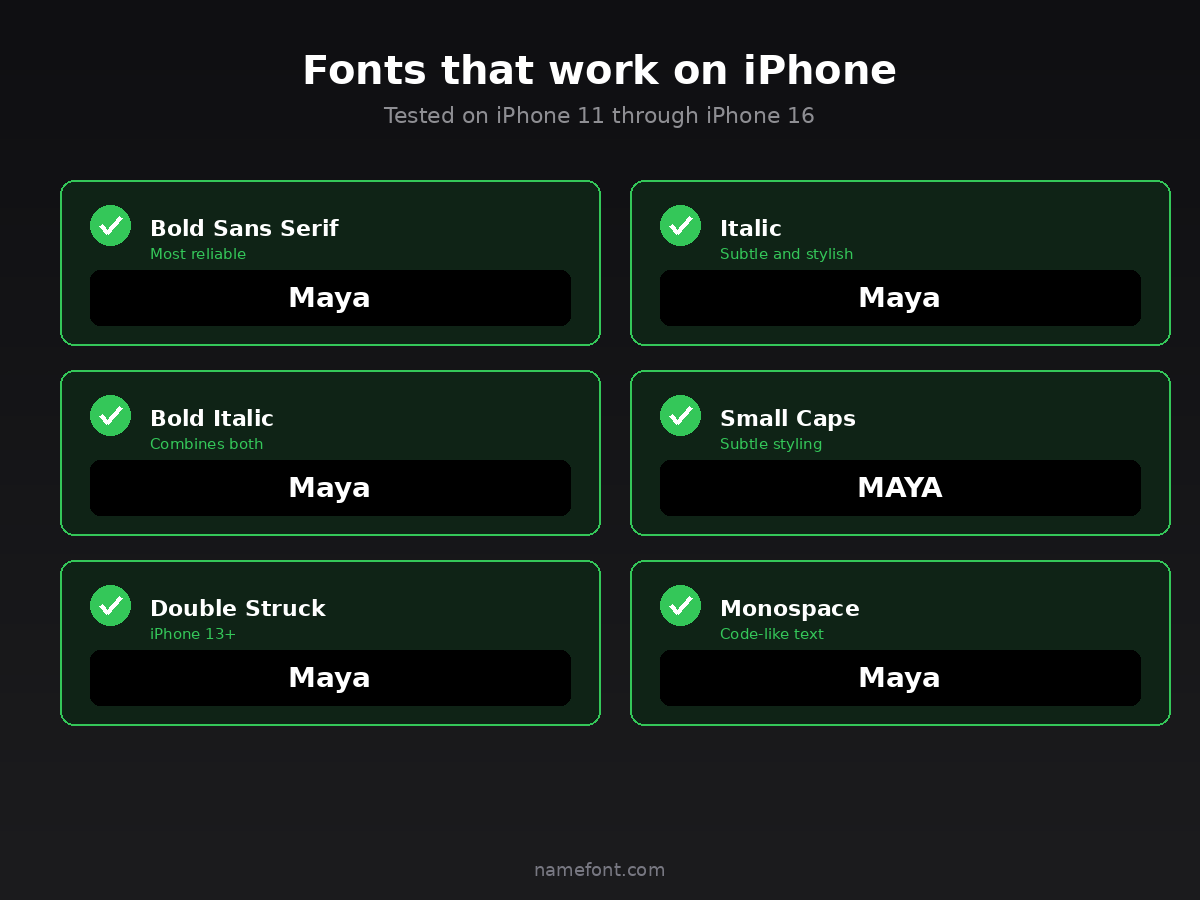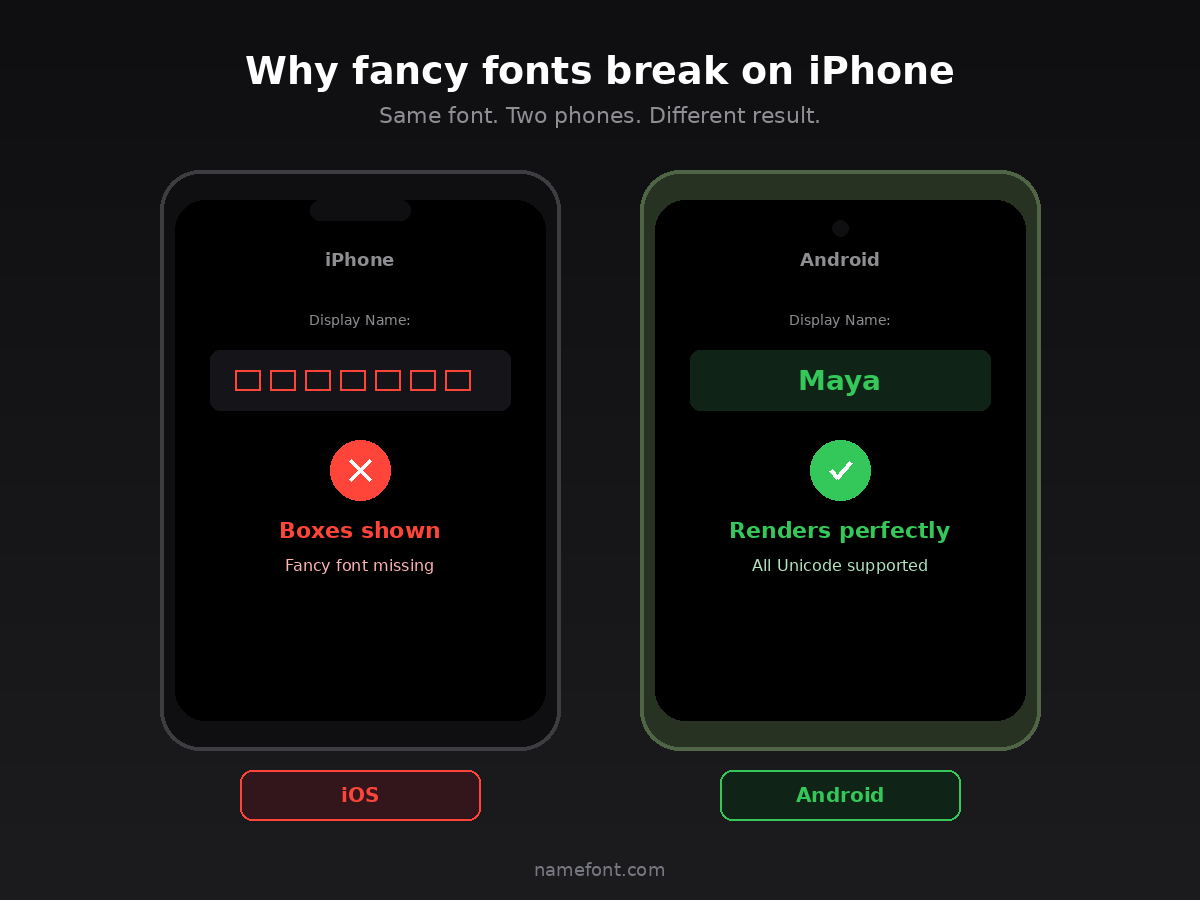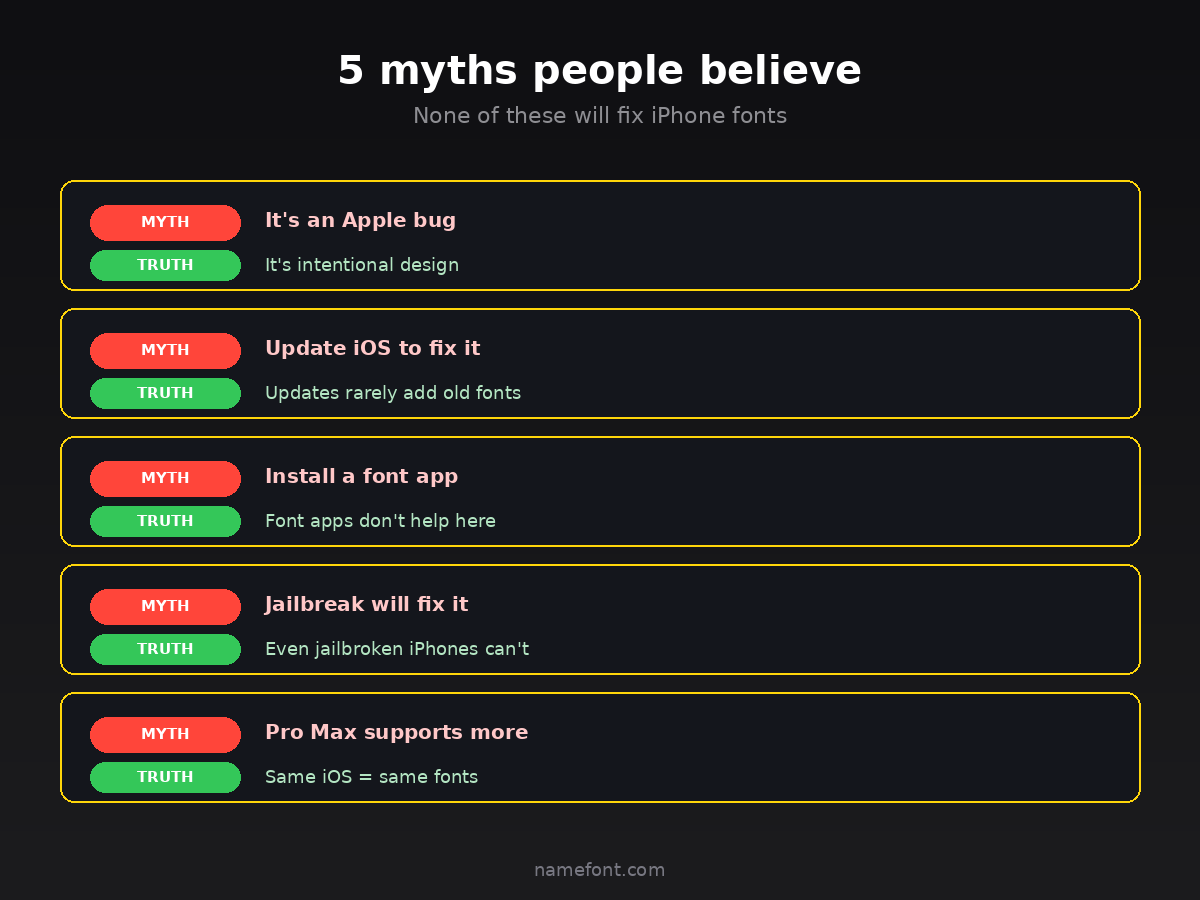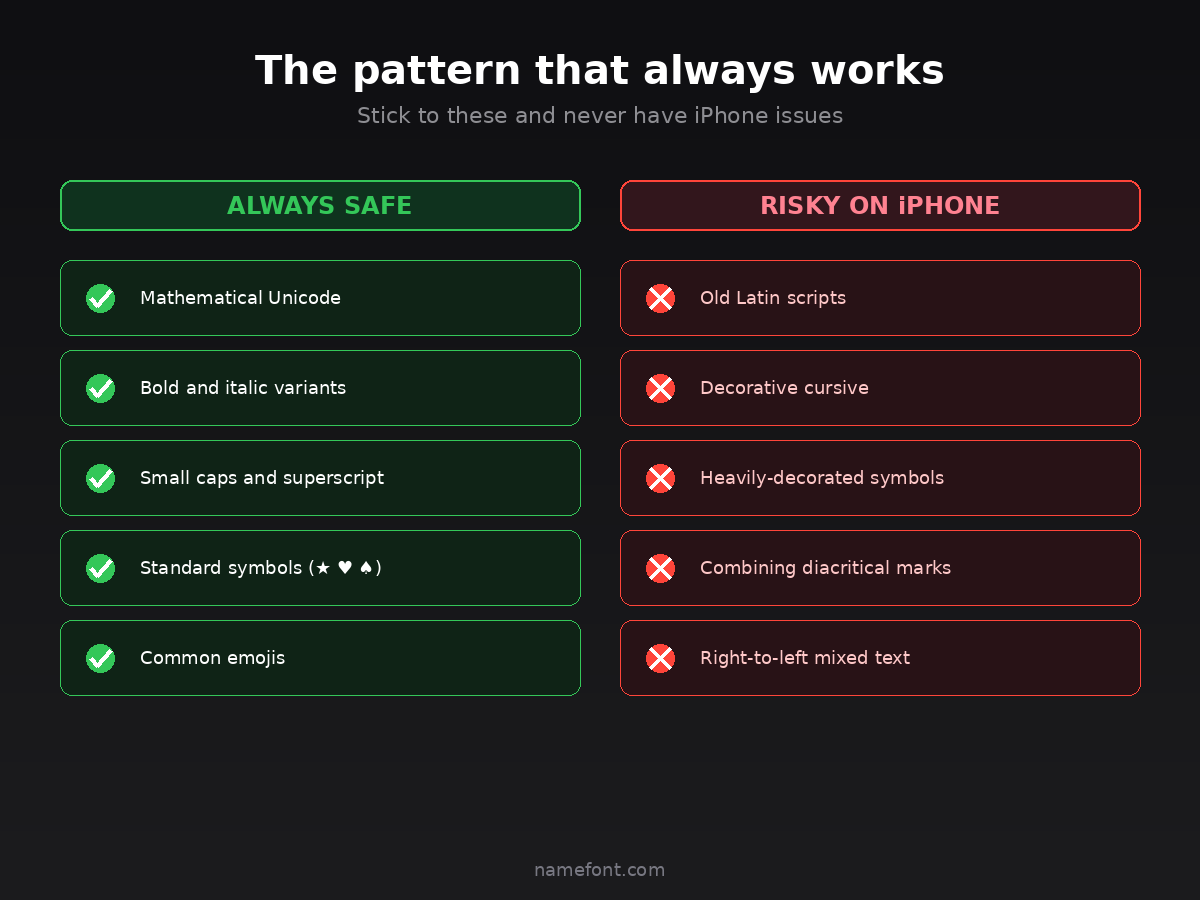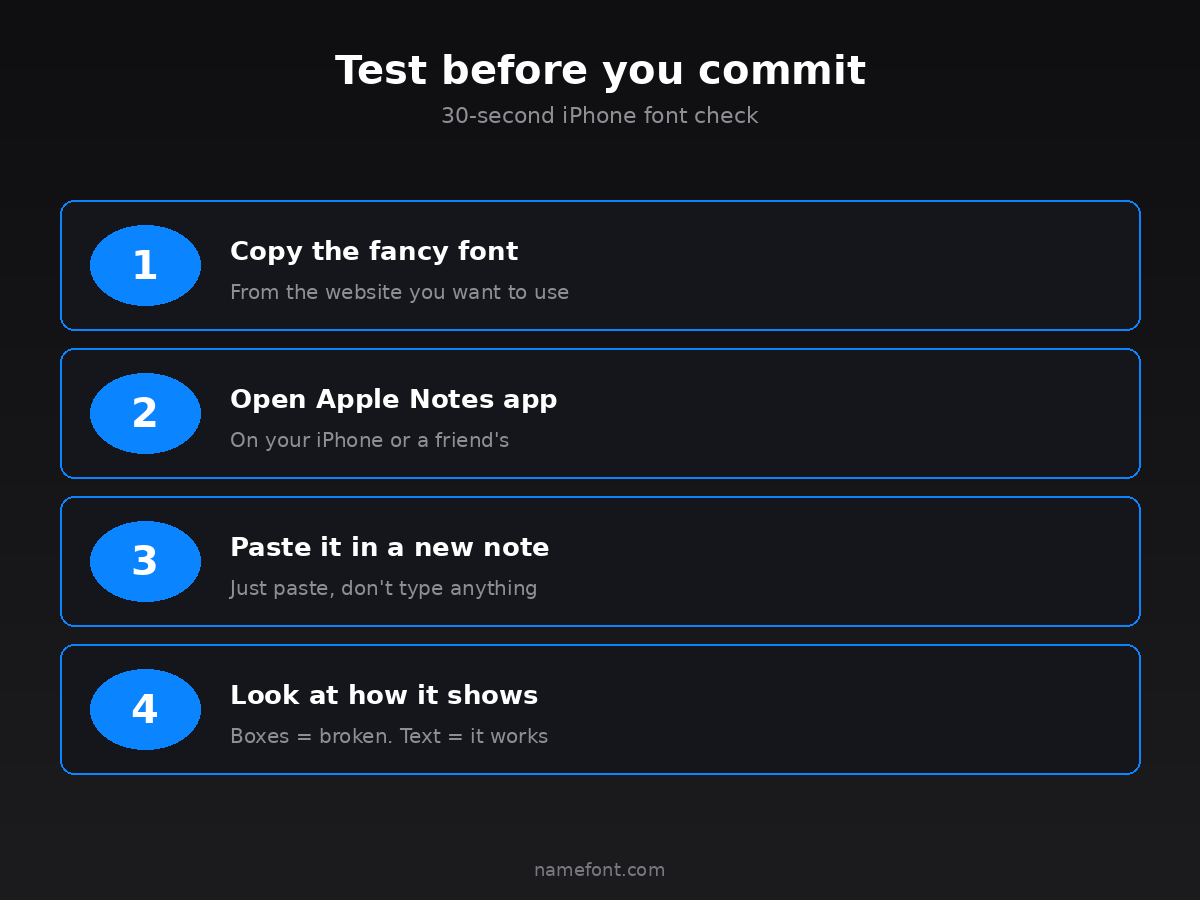
You copied a fancy font from a website. Pasted it into your Instagram bio, your WhatsApp status, your gaming name. Looked perfect on your friend's Android phone.
Opens iPhone. Boxes. Empty squares. Sometimes just plain text.
What happened?
I get this question every other week. After testing 20+ different fancy fonts across iPhone 11, 13, 15, and 16 — both India and US App Store versions — here's the actual reason it happens and how to fix it without buying a new phone or installing weird apps.
The short version
Apple uses its own font system that doesn't include every Unicode character. Some fancy fonts work everywhere except iOS because Apple decided not to support those specific characters in the system font. You can fix this by choosing fonts that ARE supported by iOS, not by changing your iPhone settings.
That's it. That's the whole problem and answer.
If you want the longer explanation and the full list of iOS-safe fancy fonts, keep reading.
Why this happens (the technical bit, simplified)
Fancy fonts aren't actually fonts. They're Unicode characters that LOOK like styled letters.
When you copy "𝓜𝓪𝔂𝓪" (cursive Maya), you're not copying a font. You're copying special characters that look like a styled M, a, y, a. Your phone reads these characters and shows them using whatever font your phone has installed.
Here's where iPhone is different:
Android phones include a font called Noto Sans, which renders pretty much every Unicode character ever made
iPhones use San Francisco, which renders most Unicode characters but NOT all of them
So when you paste a fancy font that uses characters Apple didn't include in San Francisco, iPhone shows boxes. There's literally no font on your phone that knows how to draw those characters.
Which fancy fonts WORK on iPhone
Tested across iPhone 11 through iPhone 16. These all render correctly:
Bold Sans Serif (𝗠𝗮𝘆𝗮)
Works perfectly. Most reliable fancy font for iPhone.
Italic (𝘔𝘢𝘺𝘢)
Works perfectly. Looks great in bios.
Bold Italic (𝙈𝙖𝙮𝙖)
Works perfectly. Combines both.
Small Caps (ᴍᴀʏᴀ)
Works perfectly. Subtle and stylish.
Double Struck (𝕄𝕒𝕪𝕒)
Works on iPhone 13 and newer. Older models may show boxes.
Monospace (𝙼𝚊𝚢𝚊)
Works on all iPhones. Looks like code text.
These six are your safe zone. Use them confidently.
Which fancy fonts DON'T work on iPhone
These are the ones that frequently break:
Fraktur Gothic (𝔐𝔞𝔶𝔞)
Boxes on most iPhones. Apple doesn't include these characters.
Cursive Script (𝓜𝓪𝔂𝓪)
Hit or miss. Sometimes works, sometimes shows squares. Don't risk it.
Bold Script (𝓜𝓪𝔂𝓪)
Same as cursive — unreliable.
Inverted Text (ɐʎɐW)
Works on most iPhones but looks weird because of font hinting differences.
Decorated text with combined marks
Like Maya̸ or Maya̾ — these often render incorrectly on iPhone.
Zalgo glitch text
Doesn't work on iPhone at all. Apple actively filters these.
How to test before you commit
If you're not sure whether a font will work on iPhone, here's the 30-second test:
Step 1: Copy the fancy font you want
Step 2: Open Apple Notes app on YOUR iPhone (or borrow a friend's)
Step 3: Paste it there
Step 4: Look at it
If it shows correctly in Notes, it'll work in your bio, status, or display name. If it shows boxes, skip that font.
This takes 30 seconds and saves you from setting a profile name that looks broken to half your followers.
The hidden problem with iPhone status sharing
This is the part that gets really frustrating.
Even if YOUR iPhone shows the fancy font correctly, some of your iPhone friends might still see boxes. Why?
It depends on:
Their iPhone model (older = less Unicode support)
Their iOS version (each update adds more support)
Their installed third-party fonts (some apps install extra fonts)
The specific app they're viewing it in (some apps use their own fonts)
The safe rule: stick to the 6 fonts in the "WORK on iPhone" list above. Those work on every iPhone since 2018, regardless of OS version.
What about Android-only fonts I want to use
Sometimes you find a perfect fancy font that just doesn't work on iPhone. Here's what your options are:
Option 1: Use a different font. Find one that's similar but iOS-safe. For example, instead of Cursive Script (breaks on iPhone), use Italic (always works).
Option 2: Use only on Android-only platforms. Maybe save the broken-on-iPhone font for places where iPhone users won't see it. Like specific Android-focused gaming communities.
Option 3: Mix safe and unsafe. Use a safe font for the main name and an unsafe symbol just for decoration. If the symbol shows as a box on iPhone, the name still reads fine.
There's no Option 4 where the font magically works. The character either exists on iPhone or it doesn't.
Common iPhone fancy font myths
Quick myth-busting because these come up a lot:
Save the cursive and fraktur fonts for places where you control the audience (your own personal Android device, or platforms that render their own fonts like specific design apps).
iPhone-safe is the new universal-safe. If it works on iPhone, it works everywhere.